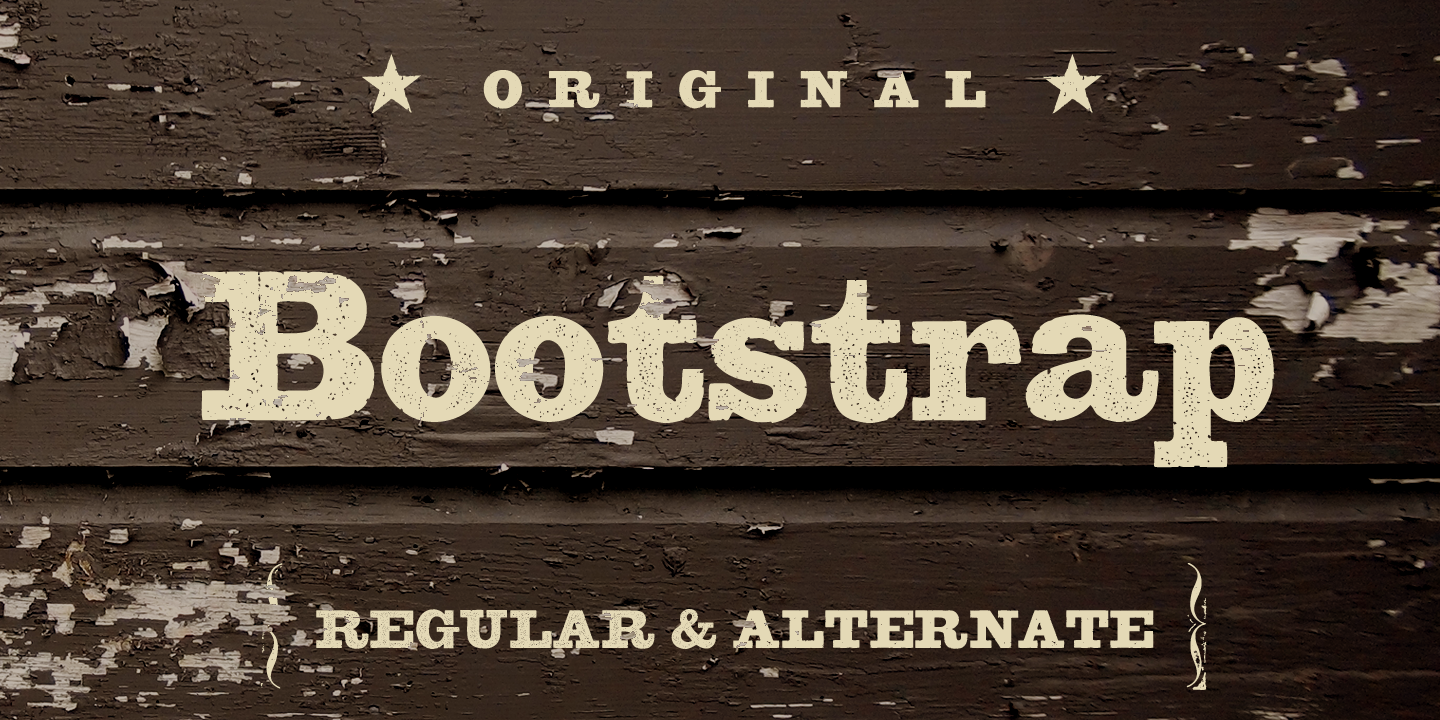
Bootstrap Font is perfect for startup company branding, entrepreneurial venture materials, self-made business communications, resourceful small business signage, lean startup presentations, independent contractor portfolios, scrappy innovation campaigns, grassroots organization materials, DIY project instructions, and entrepreneurially driven marketing communications.
Bootstrap Font is exciting because it embodies the scrappy determination and resourceful innovation of bootstrap entrepreneurs with its efficiently structured letterforms that seem built from minimal resources yet achieve maximum impact, reflecting the ingenious spirit of founders who transform limited means into unlimited possibilities. Its entrepreneurially focused character design reflects both the practical efficiency required for lean operations and the ambitious vision that drives self-made success stories, making it perfect for brands celebrating independent achievement and resourceful innovation.
Bootstrap Font family includes thin, light, regular, medium, bold, and black weights, each with corresponding italic versions. The font family also features startup-inspired ornaments, entrepreneurial ligatures, innovation symbols, and resourceful decorative elements that enhance its efficient aesthetic and business-building versatility.
This entrepreneurially efficient typeface represents the perfect fusion of startup practicality and ambitious innovation. Bootstrap Font Free Download enables designers to experience its startup potential before making a commercial commitment. The font's ability to convey both resourceful efficiency and entrepreneurial ambition makes it ideal for startups, small businesses, and independent ventures targeting audiences who appreciate self-made success and innovative problem-solving.
Whether you're developing startup brand identities, creating small business materials, or designing entrepreneur-focused communications, Bootstrap Font brings an unmistakable sense of resourceful determination and startup innovation to every project. Its efficient character and bootstrap heritage create powerful connections that resonate with entrepreneurs and audiences seeking authentic self-made success stories and innovative business solutions.
The font's versatility excels in business and innovation environments where efficiency and entrepreneurial spirit are essential. Its startup character makes it particularly effective for tech startups, small businesses, freelance professionals, and innovation-focused organizations seeking to establish authentic relationships with entrepreneurs and audiences who value resourceful independence and bootstrap determination.
For designers working on projects requiring genuine entrepreneurial appeal and startup authenticity, Bootstrap Font offers an exceptional solution. Its resourcefully efficient presence and comprehensive startup-themed elements provide the tools needed for creating truly innovative communications, while its entrepreneurial spirit ensures your designs capture the scrappy determination and resourceful innovation that defines the most successful bootstrap ventures and self-made business achievements.